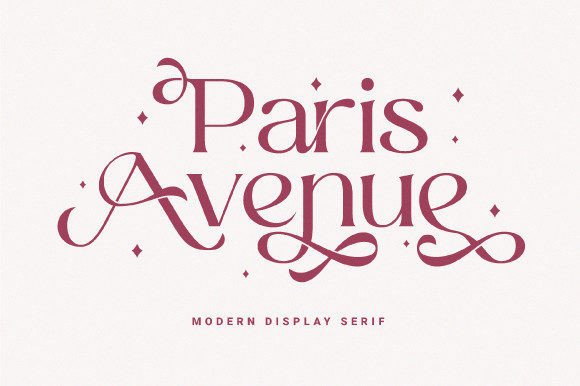
Journey through the world of elegance and sophistication with Paris Avenue Font, a captivating serif font family that exudes charm and timeless beauty. Step into a realm where your creative visions take center stage, adorned with the grace and allure of Paris Avenue's meticulously crafted characters.
Every letter is a testament to the harmonious fusion of classicism and modernity, an artful blend of traditional serifs and a fresh, contemporary twist. Let the flowing curves, graceful ascenders, and distinctive descenders of Paris Avenue elevate your designs to new heights of refined elegance.
Designed with a discerning eye for detail, this font family is the perfect companion for creating visually striking magazines that leave a lasting impression on your readers. Its intricate details and delicate flourishes add a touch of luxury and femininity to your layouts, captivating their attention from the very first page.
Welcome to the world of Paris Avenue, where every word carries a story and every design becomes a masterpiece. Let this exquisite font be the gateway to your creative journey, leaving an indelible mark on the world of typography.